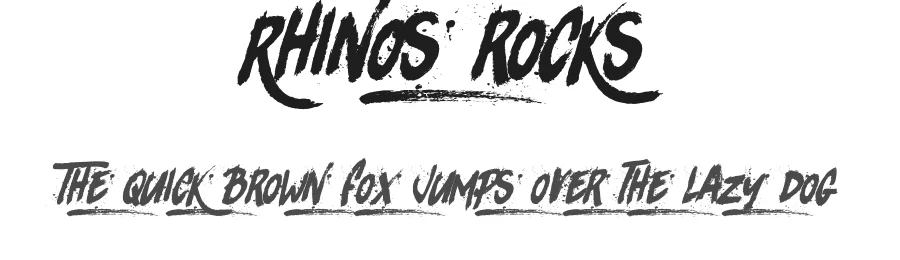
About Eclipse Font
About this font:
This is messy and chaotic. A font of disorder. Eclipse!
With the use of an old round brush and textile ink, we produced a detailed look of another raging font.
Eclipse Font is a script font that shines as a display or heading face. Pair it with a clean sans-serif or serif font for body text β the contrast creates a clear hierarchy while the two styles stay balanced and easy to read.